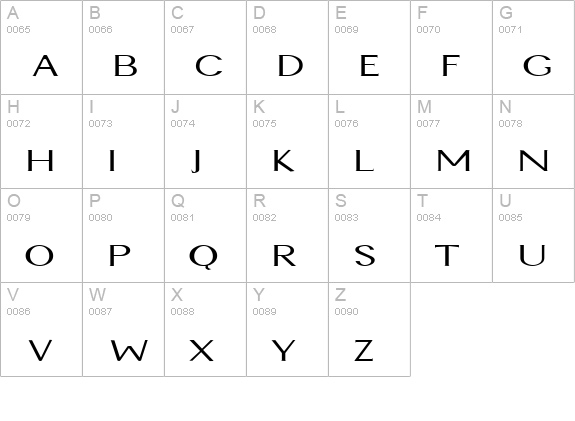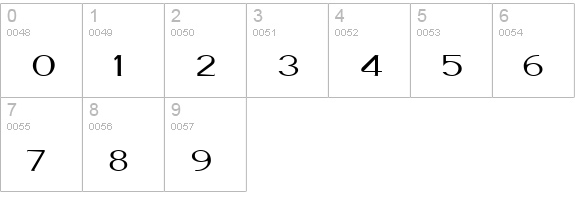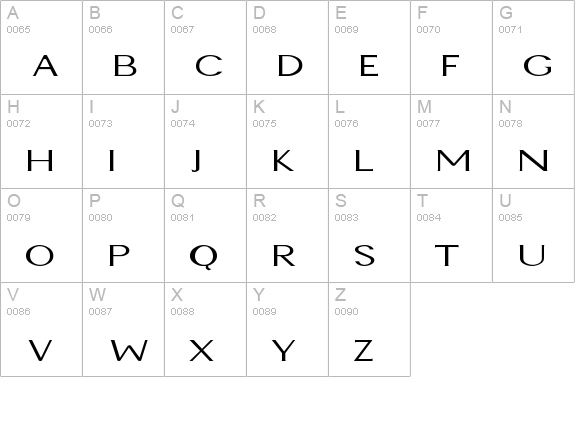
Enzyklika Font Details
Enzyklika font is a modern and stylish typeface that exudes elegance and sophistication. Its sleek lines and distinctive curves make it perfect for a wide range of design projects, from branding to editorial work. This versatile font offers a unique blend of classic charm and contemporary flair, making it stand out in any application. One of the best things about Enzyklika font is that it is completely free to download. You can easily access this beautiful typeface at FontsMarket.com, where you can find a wide selection of high-quality fonts for all your design needs. Whether you're working on a personal project or a professional assignment, Enzyklika font is sure to elevate your work with its timeless appeal and modern edge. Download it today and add a touch of sophistication to your designs.